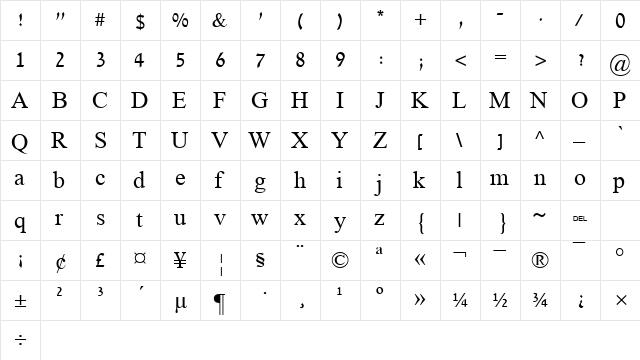
BAT SHAVA Font Preview
Design Context for BAT SHAVA Typeface
BAT SHAVA offers clean, dependable letterforms without strong stylistic allegiance, making it a practical choice for designers who need flexibility.